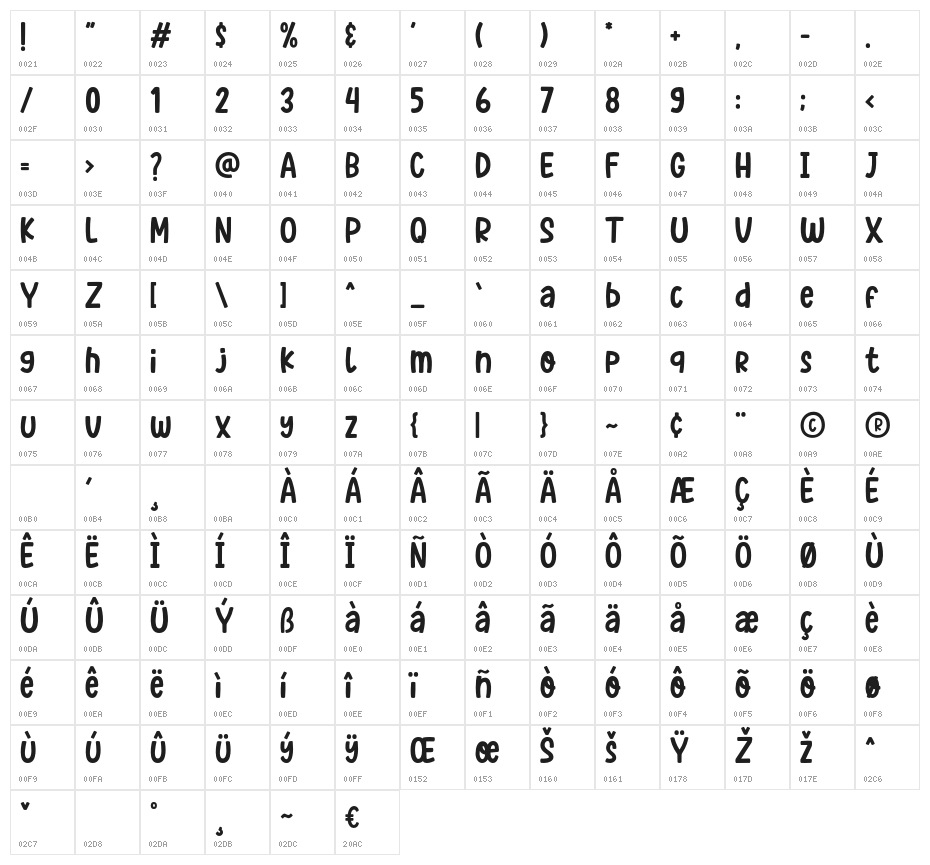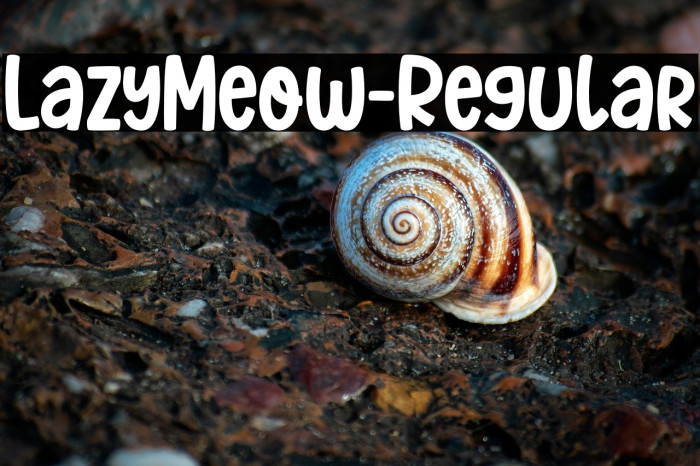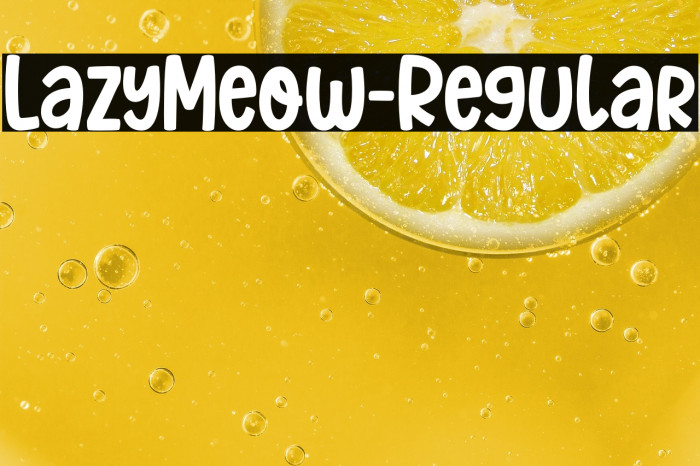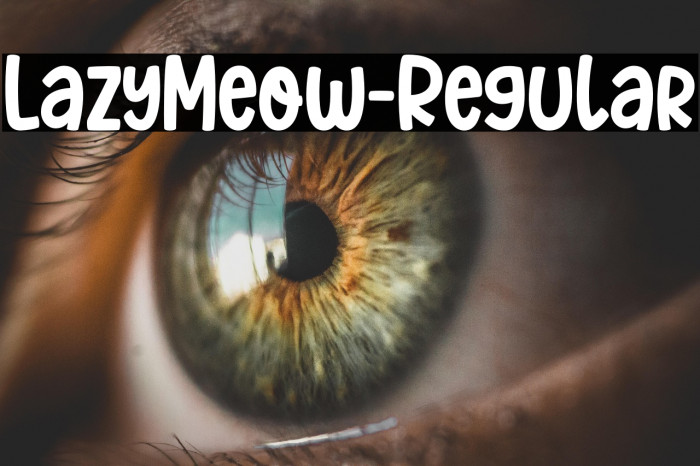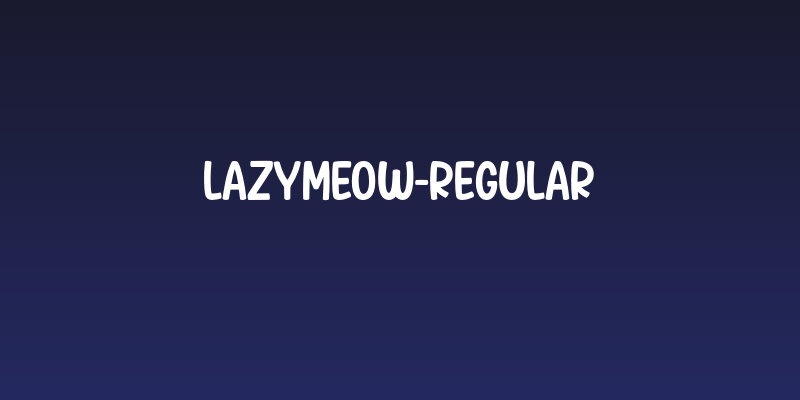
LazyMeow-Regular Font
LazyMeow-Regular Description
This playful and whimsical font features rounded, bold characters that convey a sense of fun and creativity. The letters have a hand-drawn appearance, with slightly irregular shapes that add to its charm. The uppercase and lowercase letters maintain a consistent style, with a smooth flow and rounded edges. Numbers and special characters are designed to match the playful aesthetic, making this font suitable for a variety of creative projects. Its bold and friendly look makes it ideal for children's books, playful branding, and casual invitations.
Overall StylePlayful, Whimsical
Proposed ProjectsChildren's books, playful branding, casual invitations, creative posters.